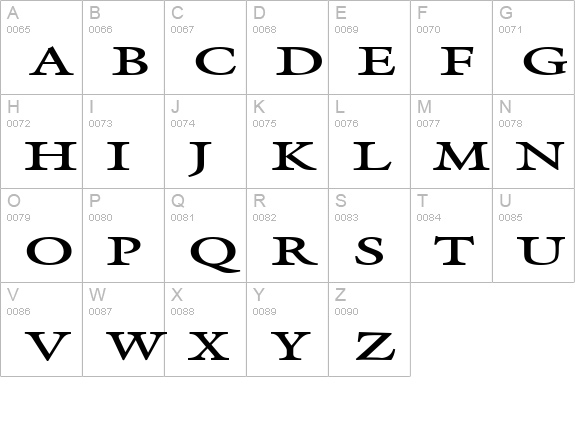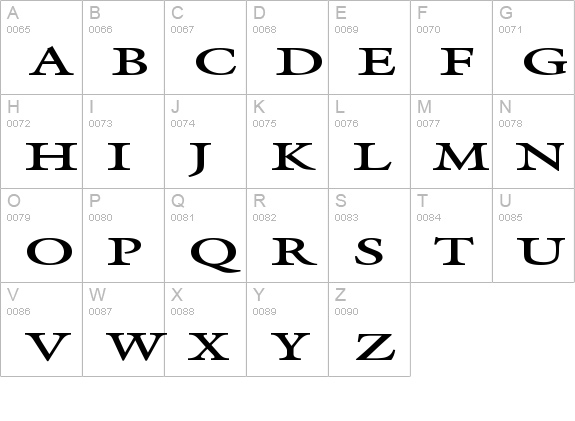
Galant Extended Bold Font Details
Galant Extended Bold is a strong, high-contrast, extended-width variant in the Galant typeface family \xE2\x80\x94 well suited to headlines, attention-grabbing titles, and strong calls-to-action.
Galant Extended Bold is a visually striking and eye-catching font that effortlessly commands attention. Its bold and extended letterforms exude confidence and make a bold statement in any design or project. This font is perfect for headlines, banners, posters, and any other creative endeavor that demands a strong and impactful visual presence. With its clean lines and modern aesthetic, Galant Extended Bold is a versatile typeface that can be used in a wide range of design applications. Whether you're designing a logo, creating a website, or crafting a brochure, this font is sure to elevate your design to new heights. What sets Galant Extended Bold apart is not only its impeccable design, but also its accessibility. This font is freely available to download at FontsMarket.com, making it easily accessible to designers, students, and anyone else looking to add a touch of sophistication and professionalism to their work. By offering this font for free, FontsMarket.com aims to empower designers with the tools they need to bring their creative visions to life. Galant Extended Bold is a true testament to the power and beauty of typography. Its bold and extended letterforms make a lasting impression, while its freely available download ensures that everyone can benefit from its visual impact. Whether you're designing for print or digital, this font is sure to make a bold statement and captivate audiences with its striking presence.